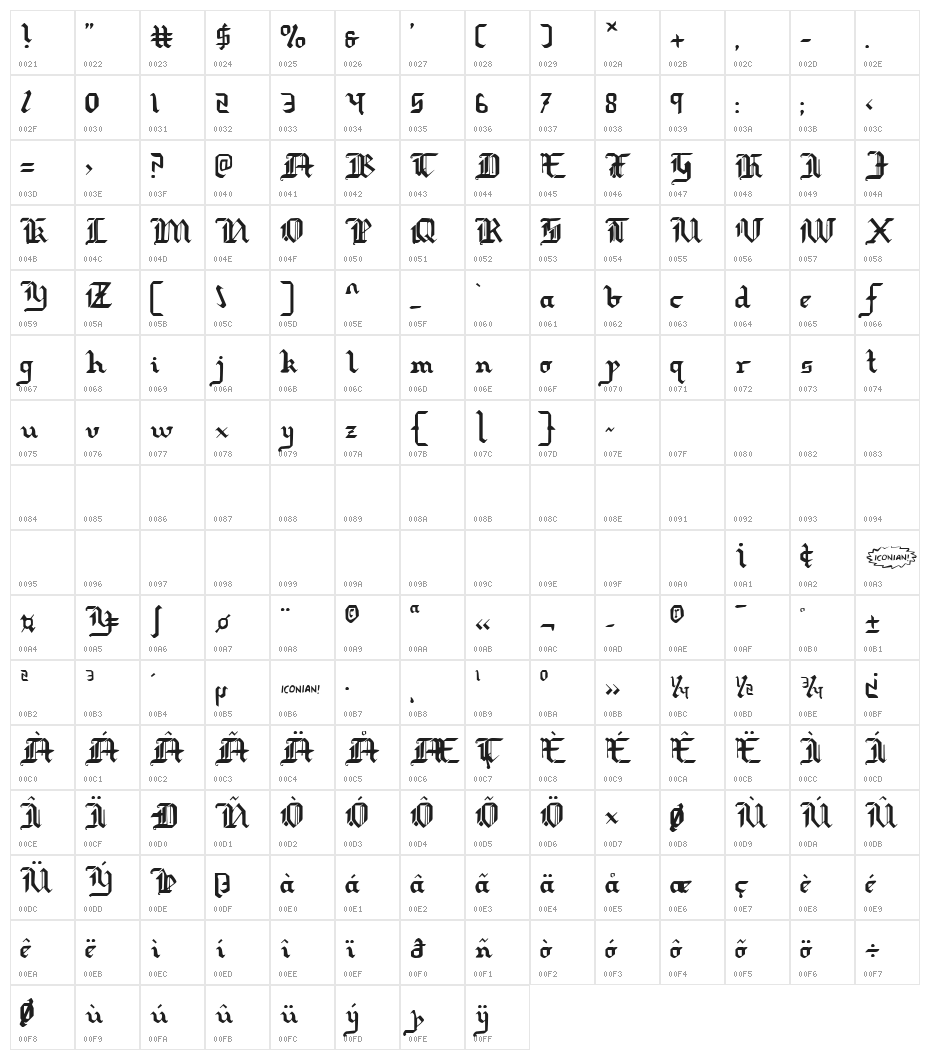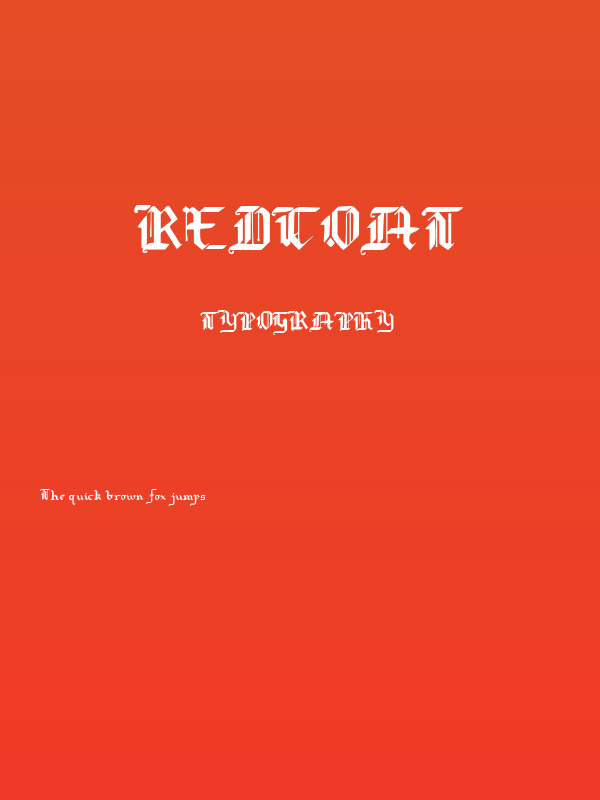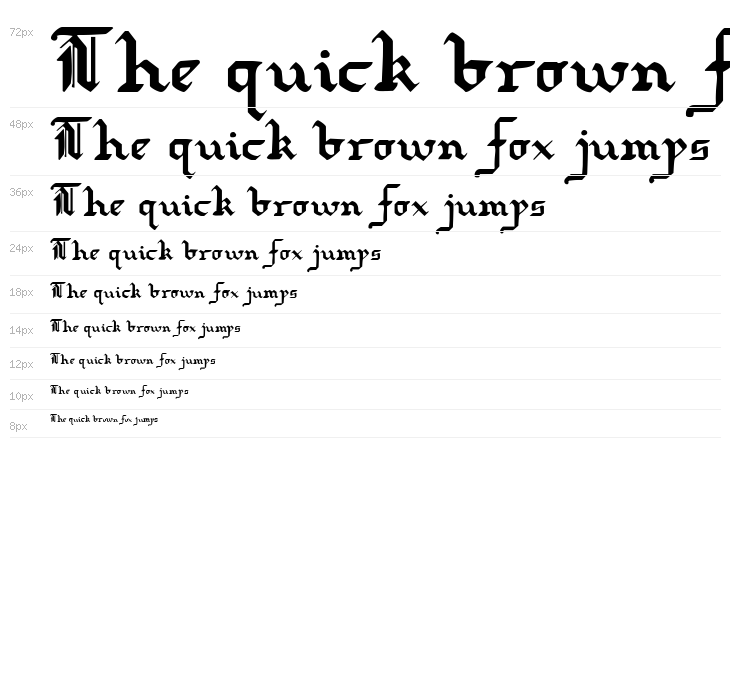
Redcoat Font
Redcoat Description
This font exhibits a bold and dramatic style, reminiscent of traditional blackletter typefaces. The uppercase letters are characterized by sharp, angular lines and intricate detailing, giving them a strong, authoritative presence. The lowercase letters maintain a similar aesthetic, with a slightly more fluid and connected form, yet still retaining the bold, angular features. The numerals are consistent with the overall style, featuring sharp edges and a robust appearance. Special characters are designed with the same attention to detail, ensuring a cohesive look across all glyphs. This font is ideal for creating a striking visual impact, suitable for projects that require a historical or gothic touch.
REDCOAT UPPERCASE
REDCOAT LOWERCASE
REDCOAT OTHER CHARS
| Use Case | Headlines, Logos, Decorative text |
| Proposed Projects | Ideal for historical-themed designs, gothic posters, book covers, and branding that requires a dramatic and authoritative typeface. |